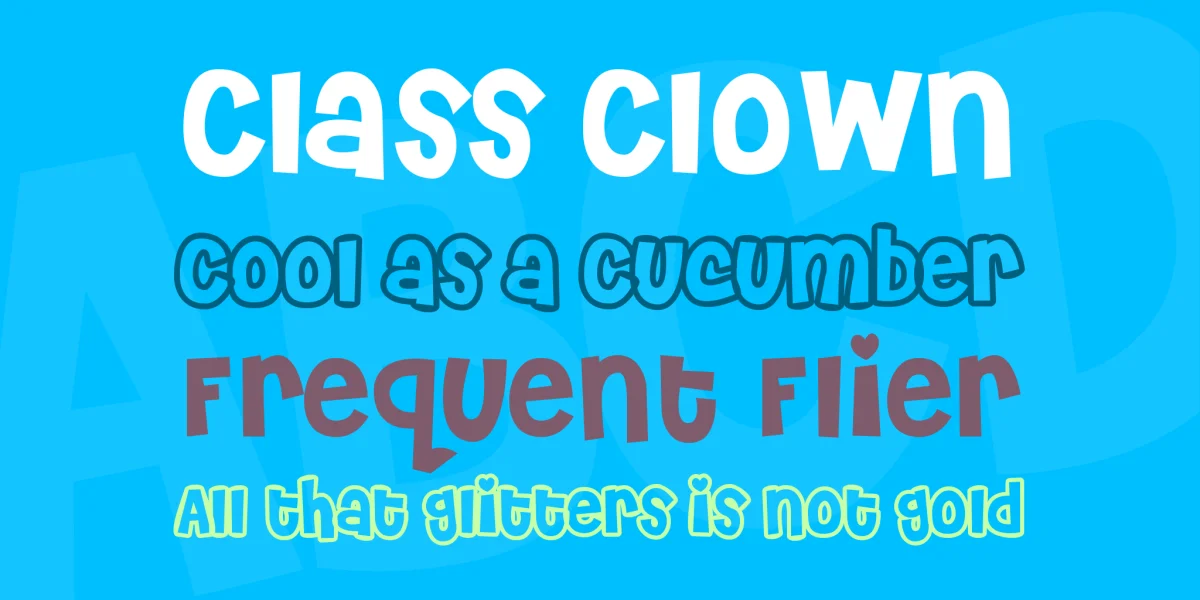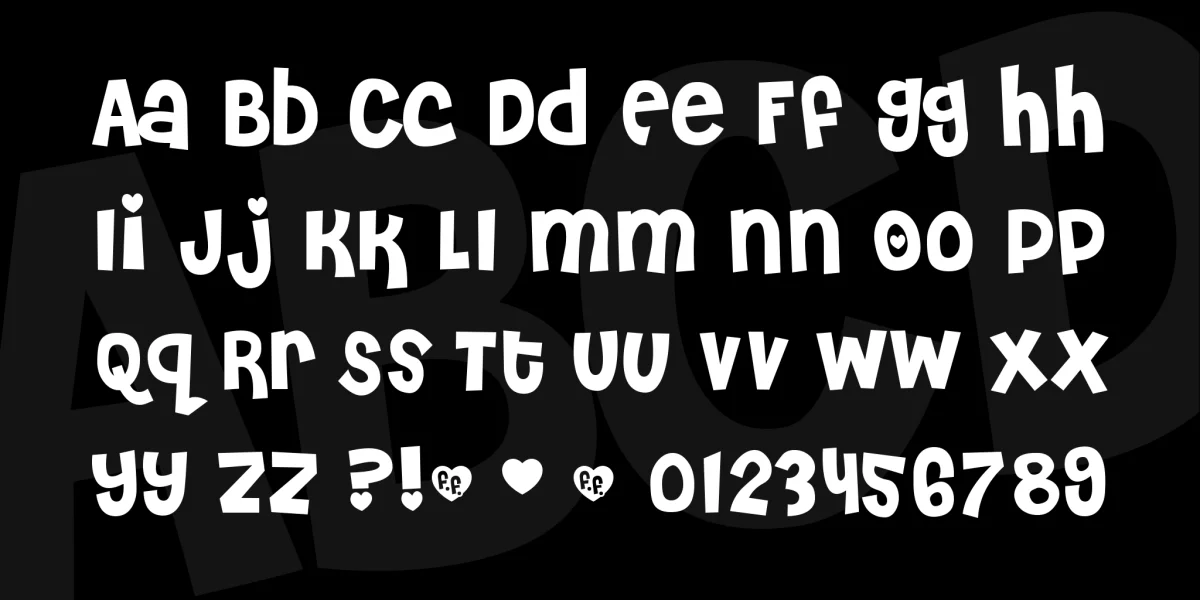
Cheri Font Family
Designed by Fontalicious
Tonight I was sitting around writing a love letter to my number one fan, Jessica Alba, and I said to myself, "Hey, the kids need a font to play with for Valentine's Day! That Kinkie font is so old hat." So I sat down in front of good old Cubert and the fingers starting jazzercizing to this little so-and-so. I think you'll find it playful enough for those sweet nothings you write to that shy goofball that sits in the back row of Advanced Calculus. And since I'm one who's never at a loss for words, I decided to go ahead and make you some valentines cards as well to give to that old rapscallion. When you get to third base on the first date after giving him one of these Valentine's, don't forget who made it happen for you.